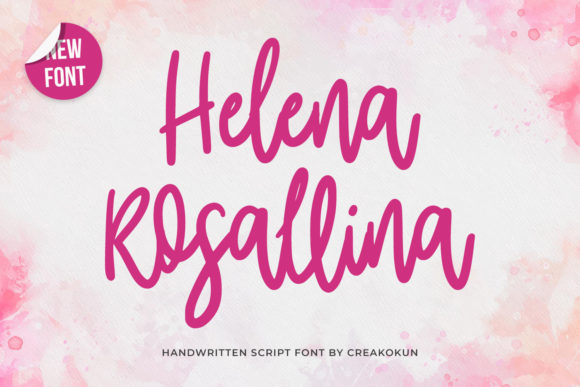
Dive into the Enchanting World of Helena Rosallina: The Finest Script Font for Your Special Occasions
In the realm of typography, where letters dance and words take flight, there exists a font that embodies grace, elegance, and timeless beauty—Helena Rosallina. This exquisite script font, meticulously crafted by the renowned Creakokunstudio, is an ode to romance, creativity, and the art of handwritten expression.
Helena Rosallina is not merely a collection of characters; it's an experience, an invitation to embark on a journey through the world of enchanting calligraphy. Its flowing strokes, delicate curves, and subtle nuances capture the essence of handwritten love letters, vintage wedding invitations, and heartfelt personal notes.
Imagine the joy of crafting a wedding invitation adorned with Helena Rosallina's elegant script. The words "You're Invited" would dance across the page, exuding an aura of sophistication and charm. Your guests would be captivated by the intricate details, the way each letter seamlessly blends into the next, creating a visual masterpiece that reflects the significance of your special day.
Beyond wedding invitations, Helena Rosallina lends its magic to a myriad of creative projects. Enchant your social media posts with captivating quotes, breathe life into your blog with stylish headings, or design eye-catching posters and flyers that leave a lasting impression. The possibilities are boundless, limited only by your imagination and the depths of your creativity.
As a versatile script font, Helena Rosallina harmonizes effortlessly with various design aesthetics, from classic and vintage to modern and whimsical. Its timeless elegance transcends trends, ensuring that your creations remain relevant and captivating for years to come.
Helena Rosallina is more than just a font; it's a tool that empowers you to express your individuality, convey emotions, and create a profound impact on your audience. Whether you're a seasoned designer or just starting your creative journey, Helena Rosallina will elevate your projects to new heights of beauty and sophistication.
As you delve into the world of Helena Rosallina, you'll discover a font that captivates hearts and ignites imaginations. Its enchanting allure will transform your creative visions into tangible works of art, leaving an indelible mark on those who encounter them.
So, let Helena Rosallina be your muse, your creative companion, and the key to unlocking a world of typographic wonder. Embrace the beauty of handwritten expression and allow your creativity to flourish with this exquisite script font. Your designs will thank you for it.